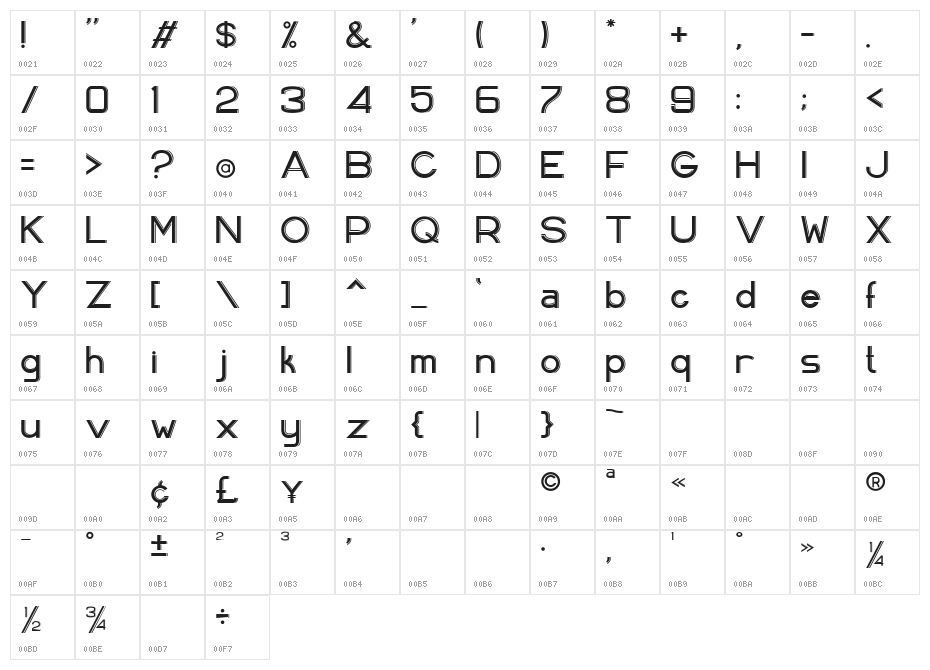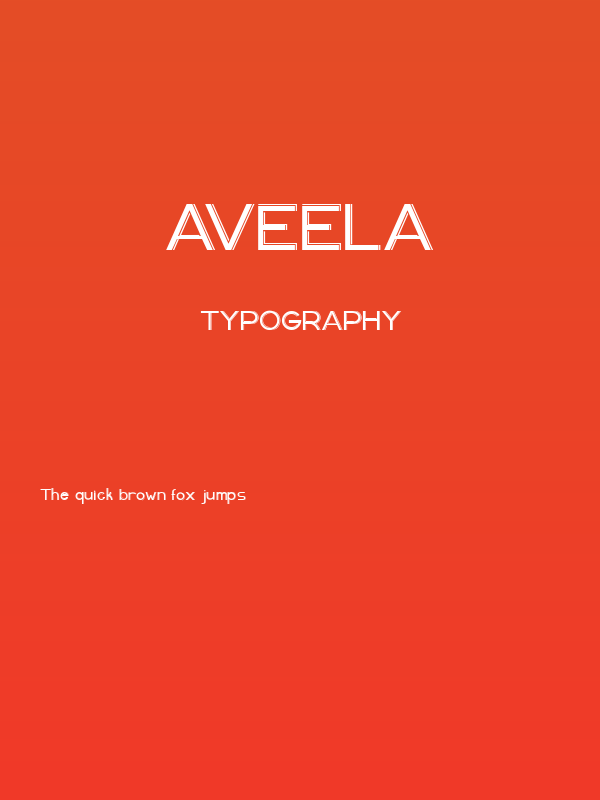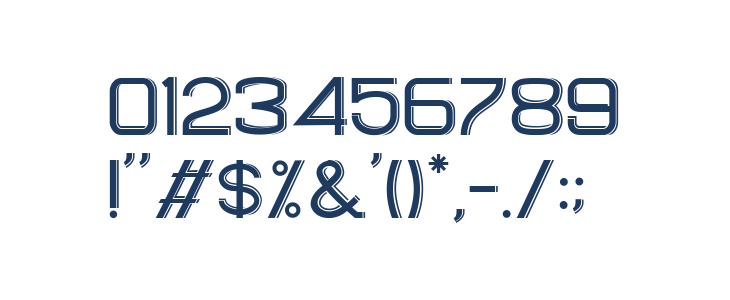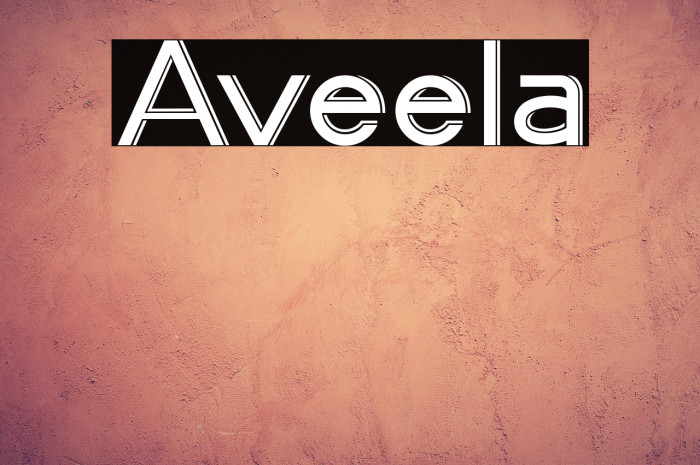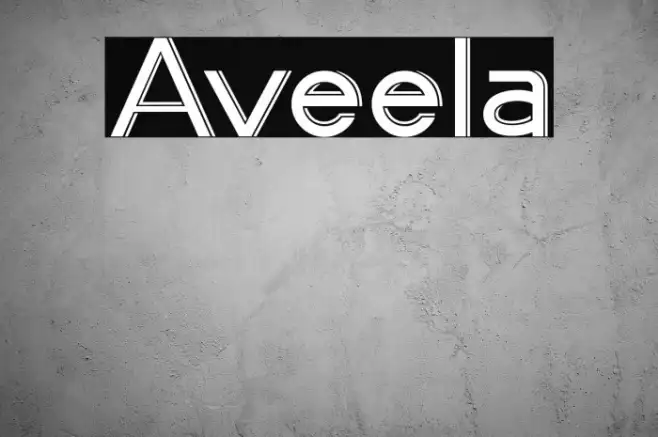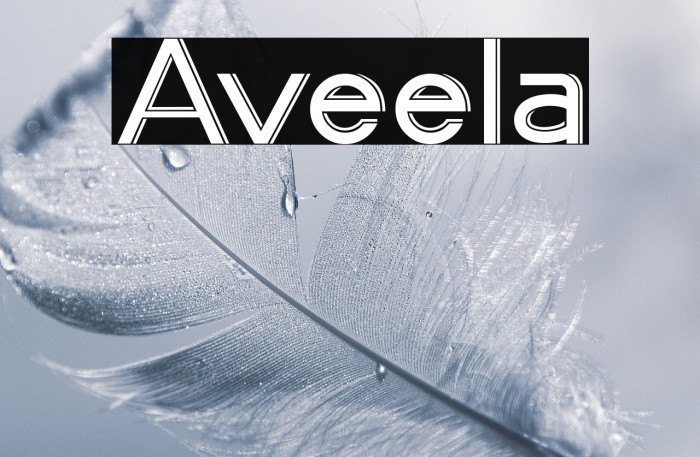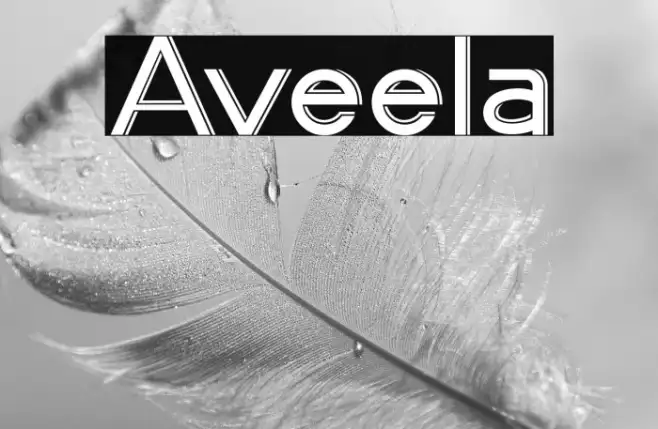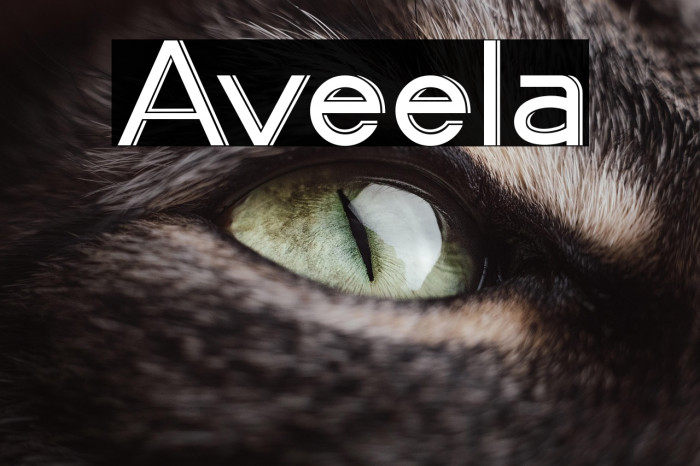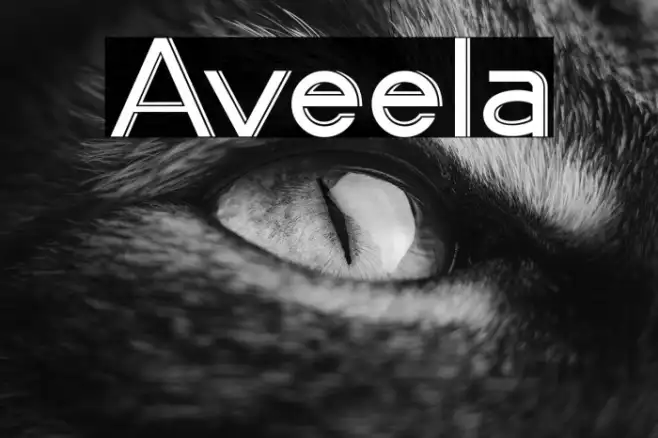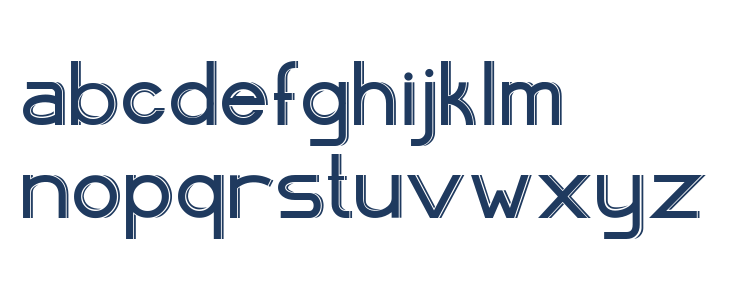
Aveela Font
Aveela Description
This font features a modern, geometric design with a distinctive double-line structure that creates a sense of depth and dimension. The uppercase and lowercase letters maintain a consistent style, with rounded edges and a clean, futuristic appearance. The numerals and special characters follow the same aesthetic, making the font versatile for various applications. Its unique design elements make it stand out, while the overall uniformity ensures readability and visual appeal.
| Use Case | Logos, Posters, Digital Media |
| Proposed Projects | Ideal for branding, logos, posters, and digital media where a modern and futuristic look is desired. |